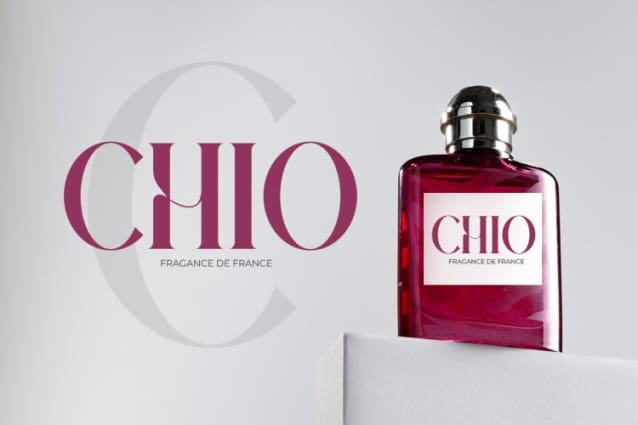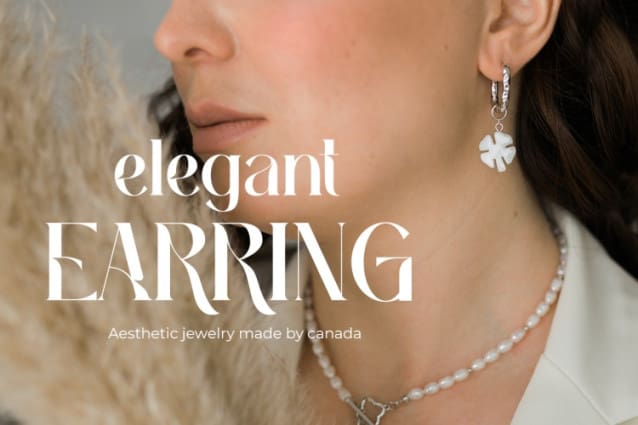
Laluna Font
Laluna Font, a font that radiates elegance and a fashionable flair to add a special touch to every design project. Crafted with precision and finesse, this font offers unparalleled elegance while embracing the latest fashion trends. “Laluna Font” is not just a font; it’s a style statement that elevates the beauty of typography to new heights. Each letter is carefully chosen to create an exclusive and captivating appearance. Available in various styles and variations, “Laluna” provides limitless flexibility to customize your design as desired. Whether for promotional materials, fashion headers, or other creative projects, this font exudes uniqueness and fashionable allure. Don’t miss the opportunity to own “Laluna” and infuse unforgettable luxury and style into every word of your design!